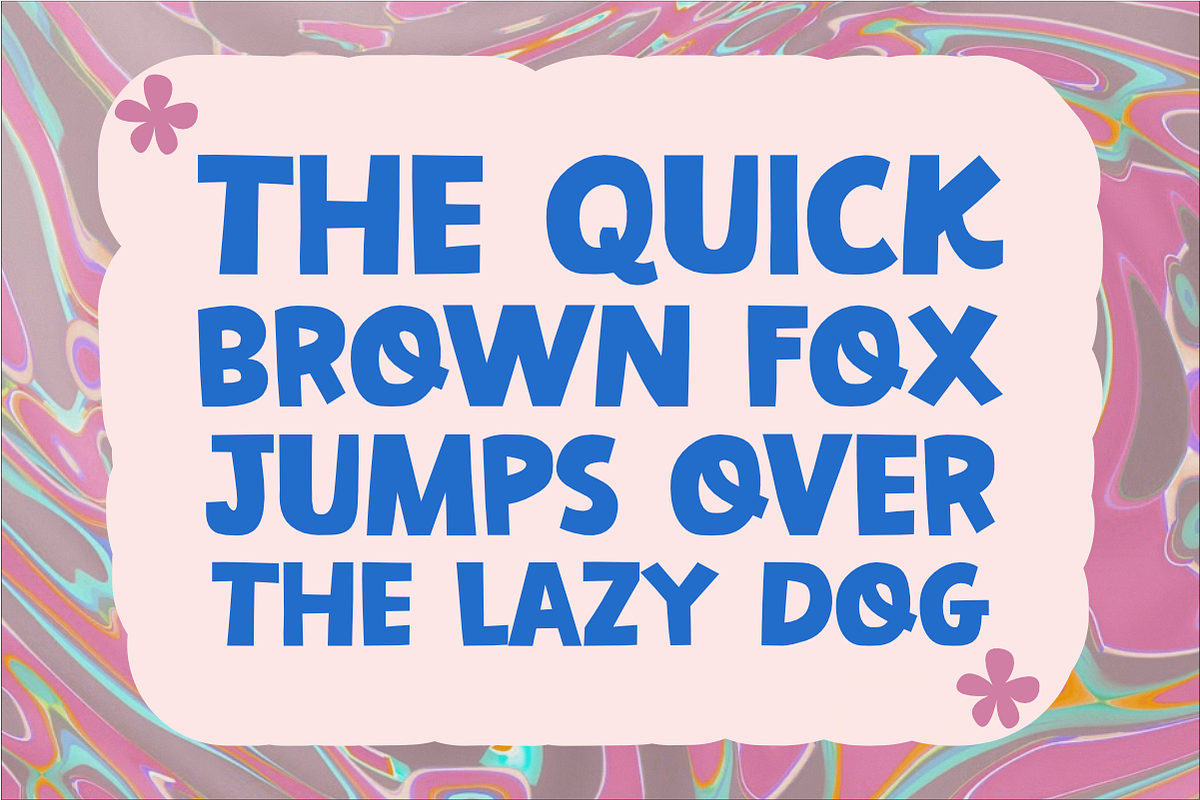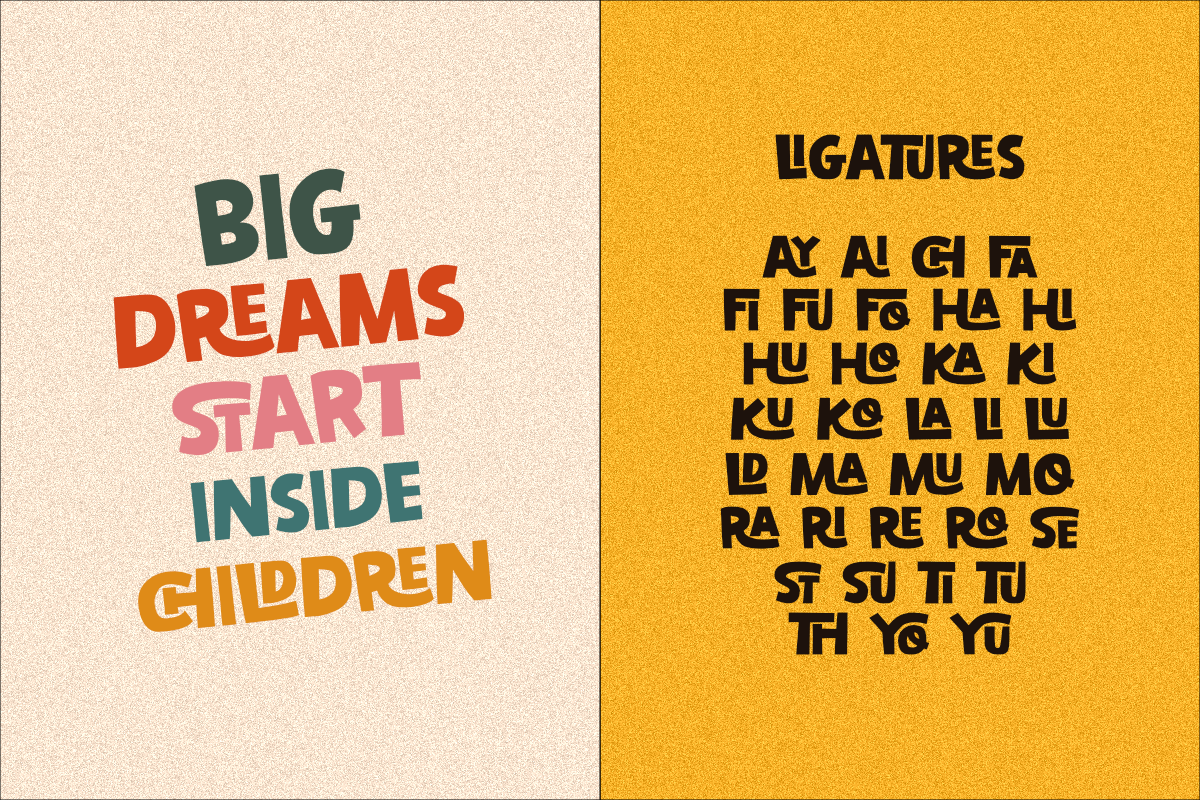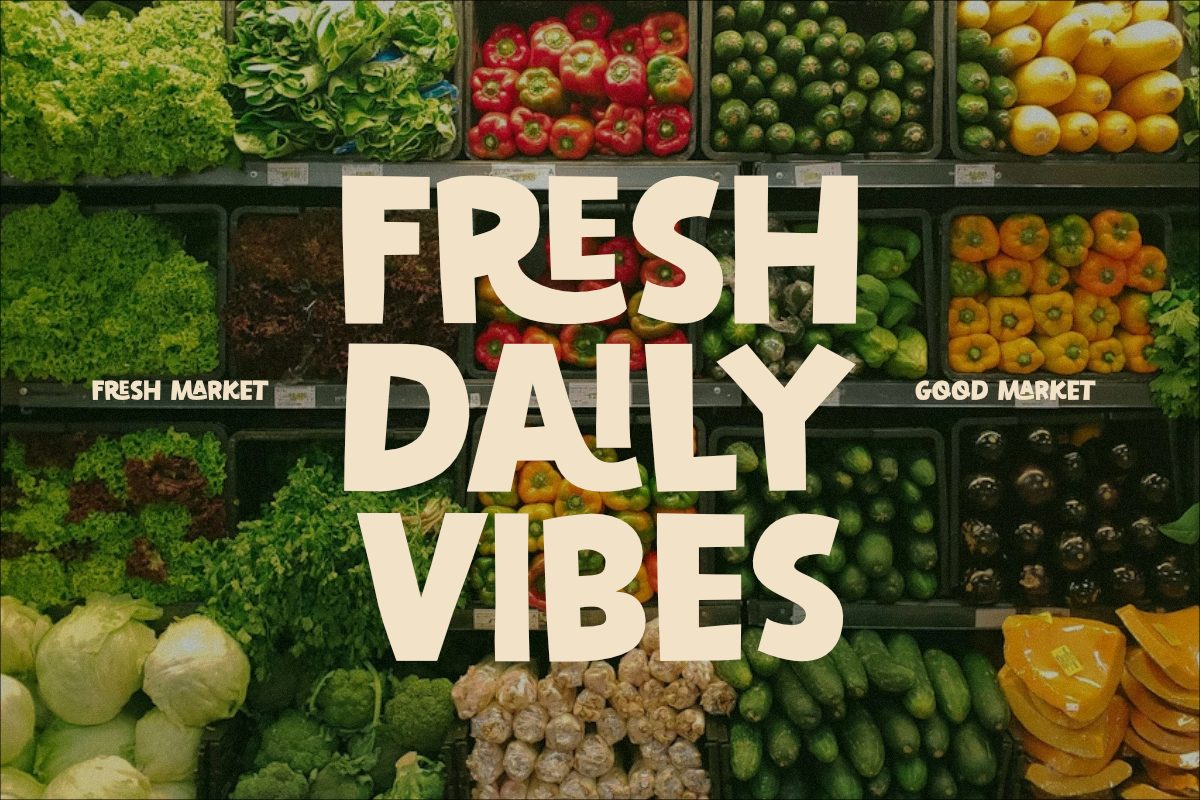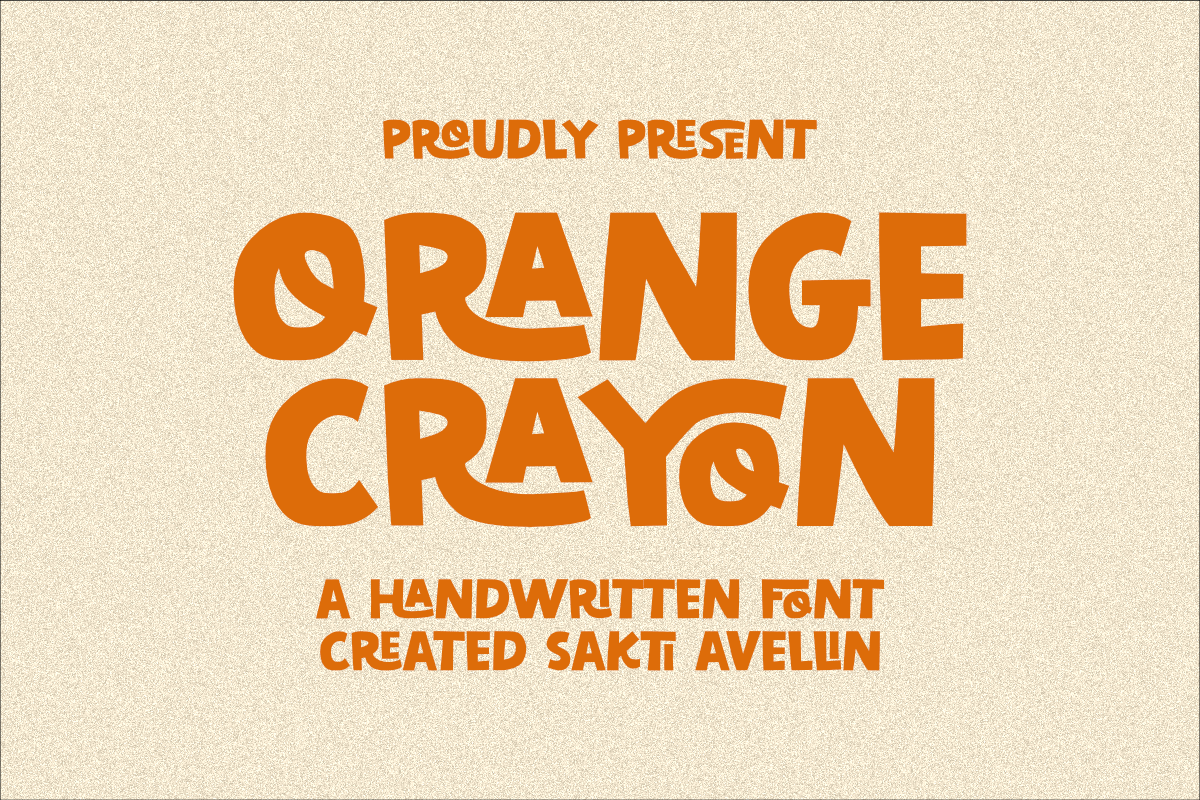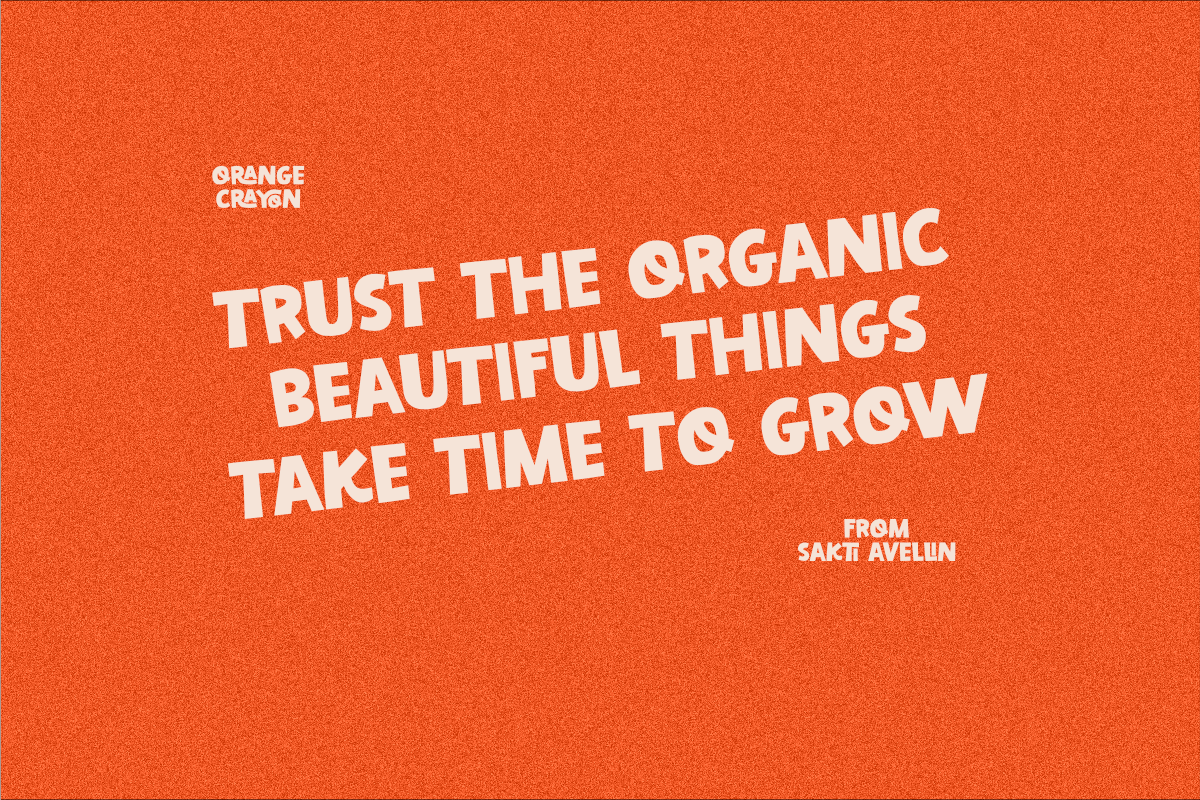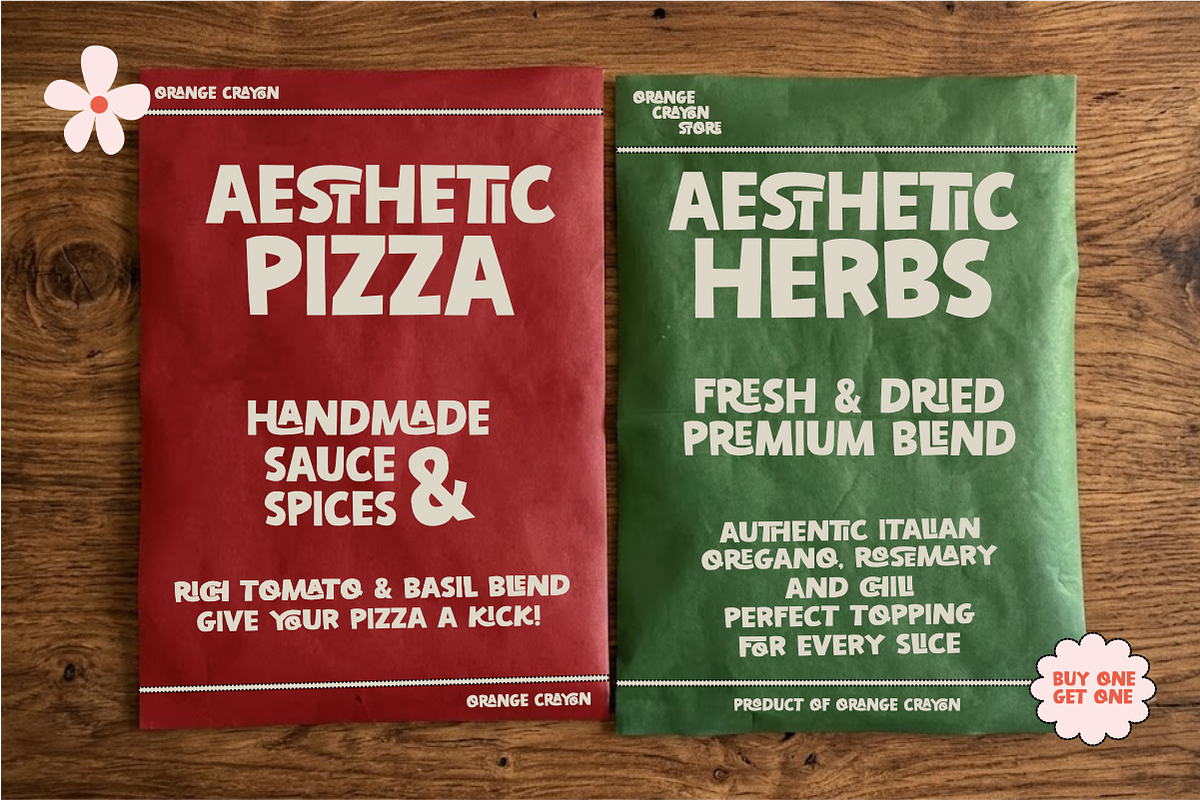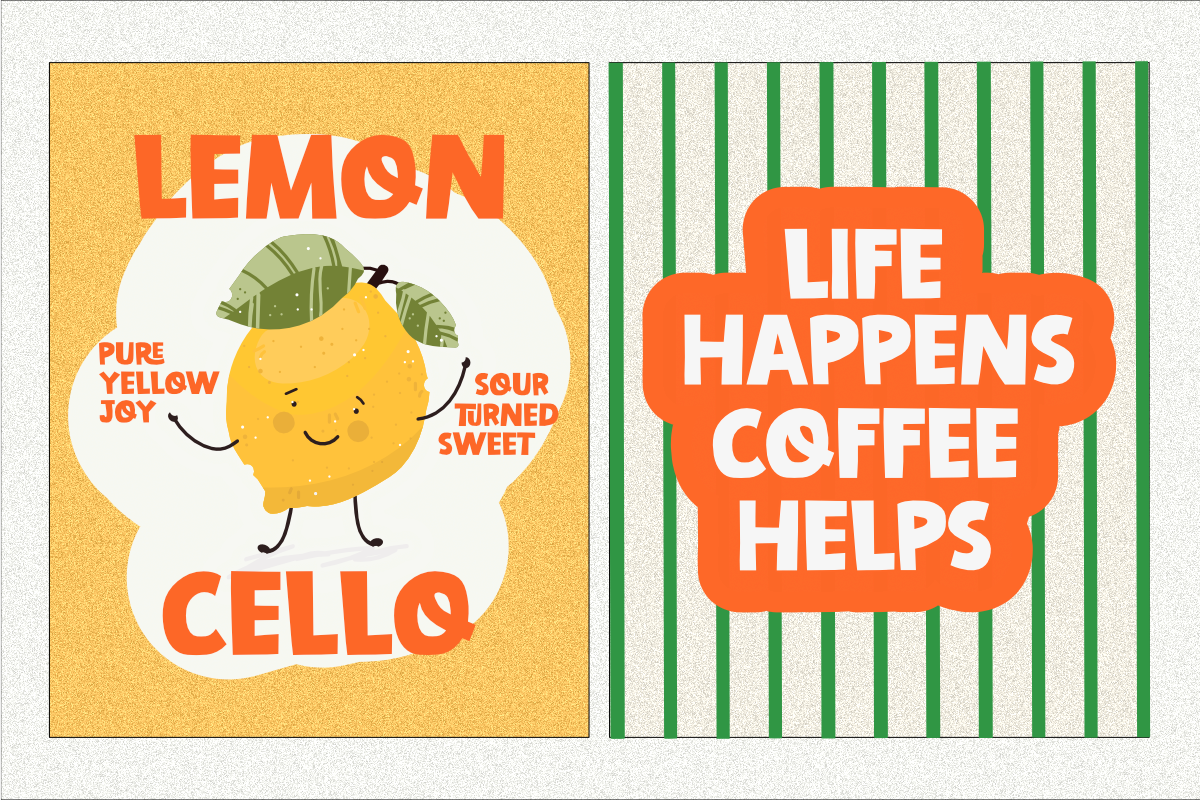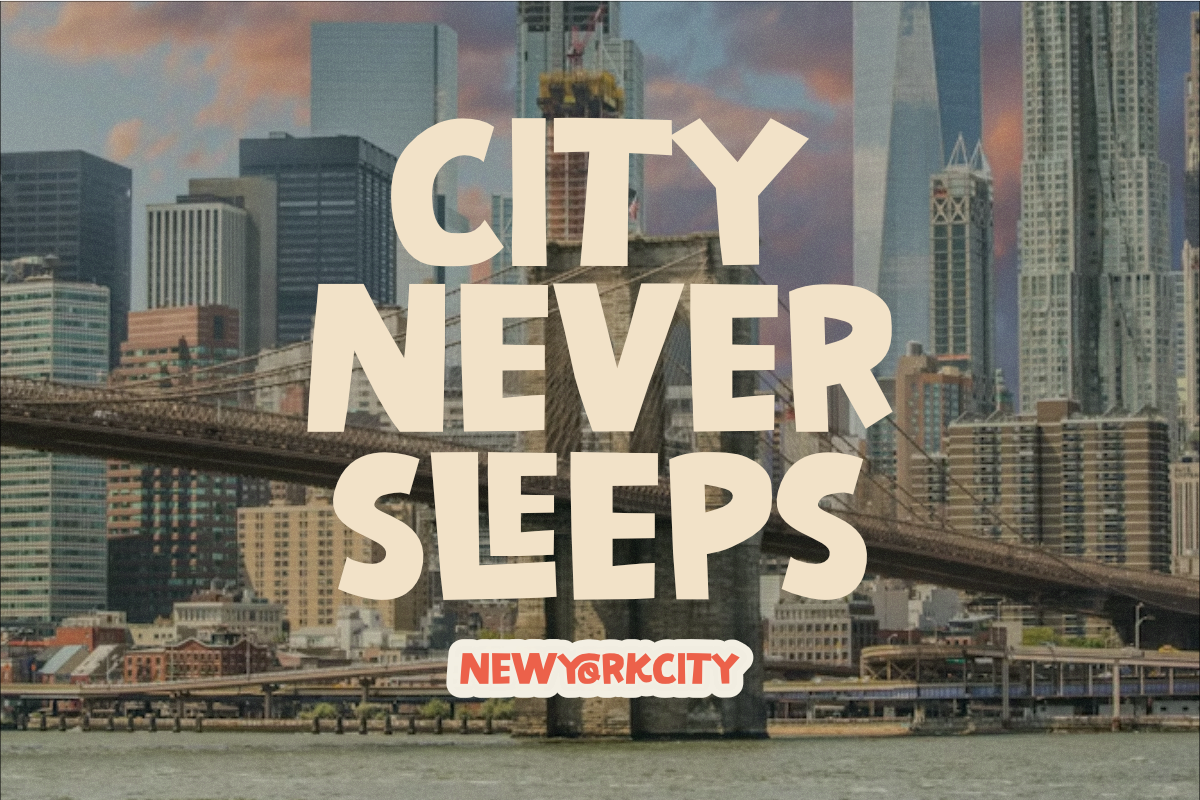
Orange Crayon - Handwritten Font
Orange Crayon is a charming handwritten font designed to bring a nostalgic, artistic vibe to your creative projects. This playful display typeface features unique, textured letterforms that capture the innocent and imaginative spirit of childhood drawings. Perfect for kids' branding, school projects, colorful stickers, nursery decor, and cheerful invitations. Its warm and organic aesthetic ensures your headlines stand out with a personalized, handcrafted personality. Whether you are designing for toy packaging, social media graphics, or whimsical crafts, Orange Crayon adds a delightful and creative touch to every design.